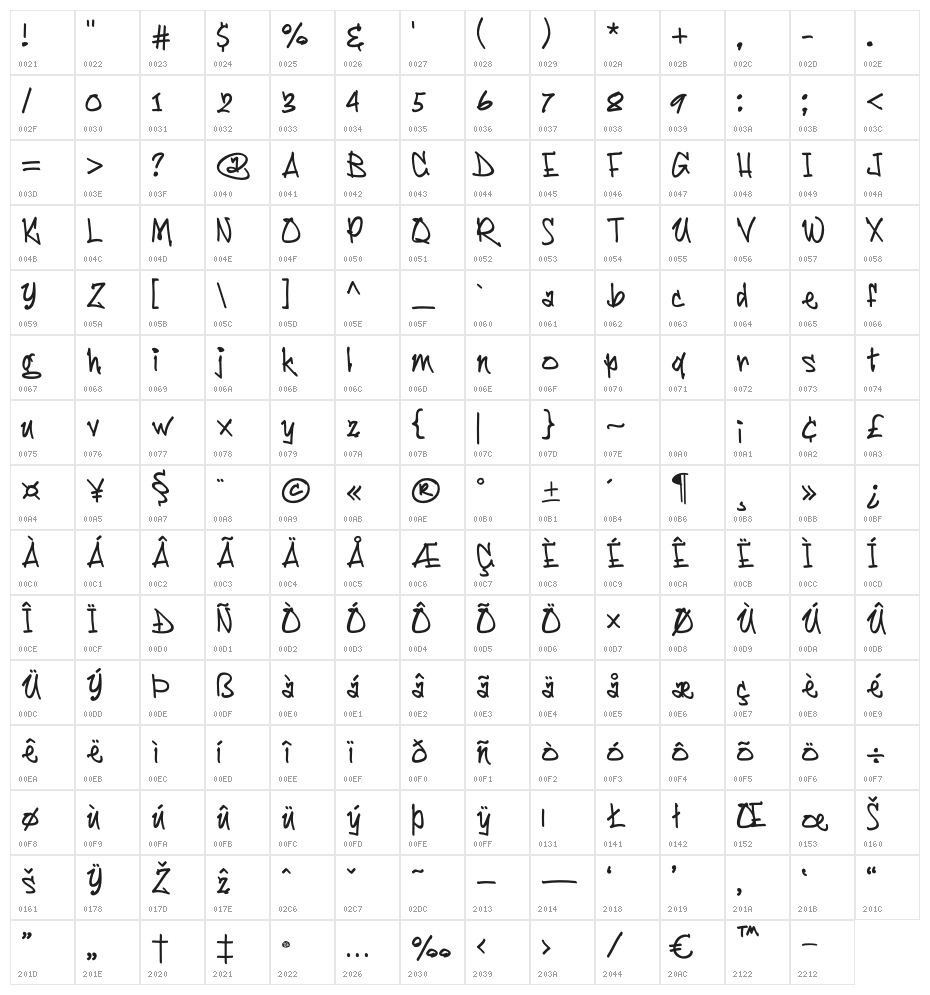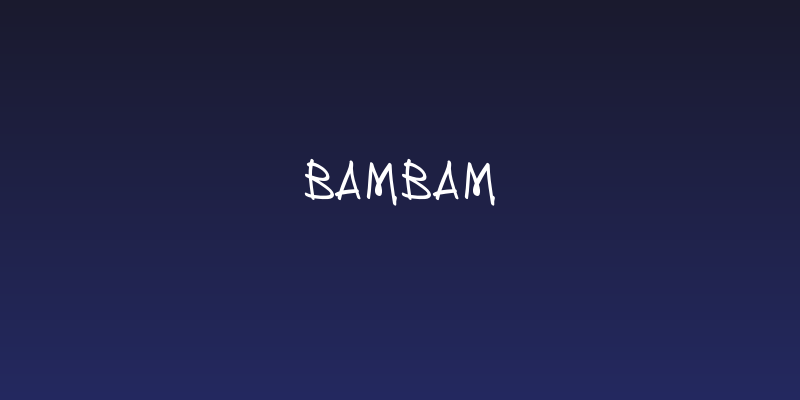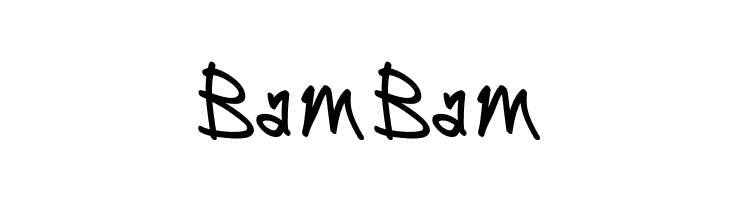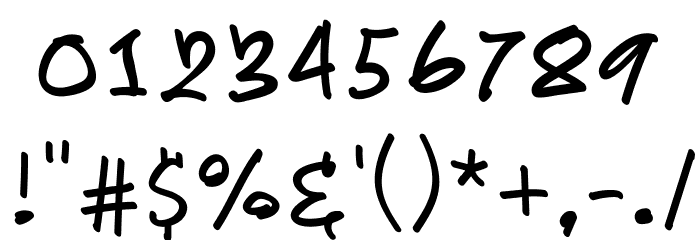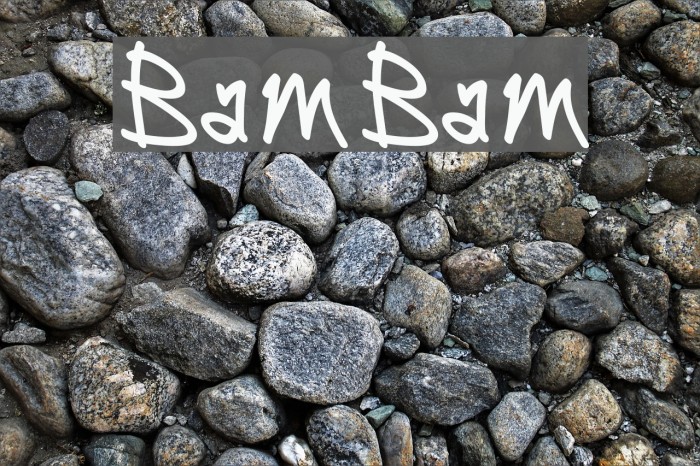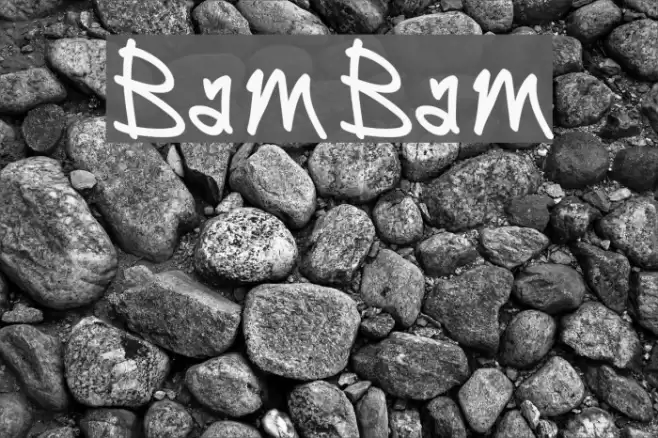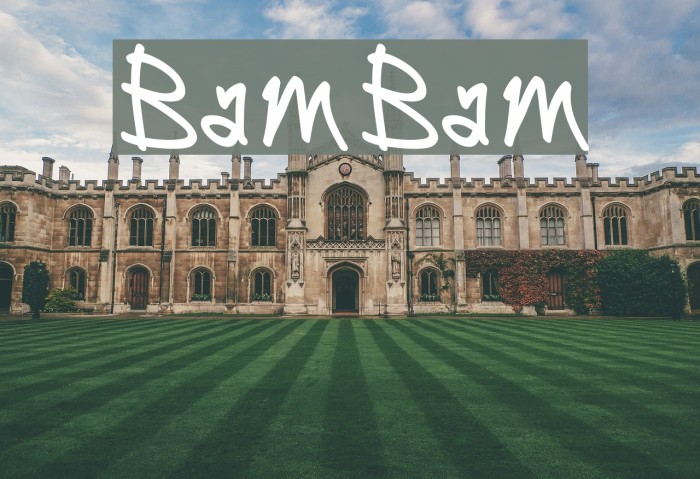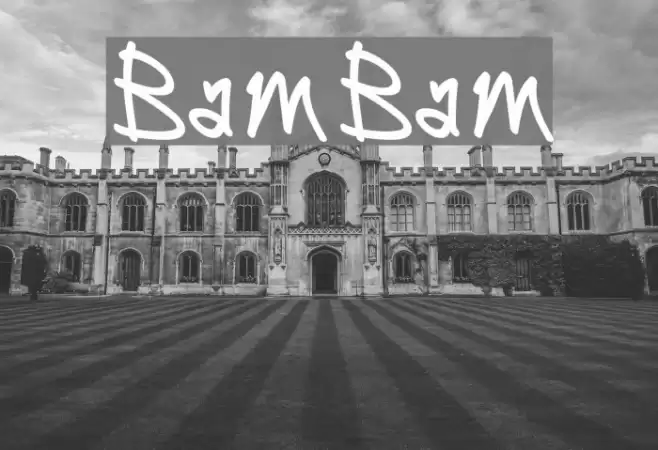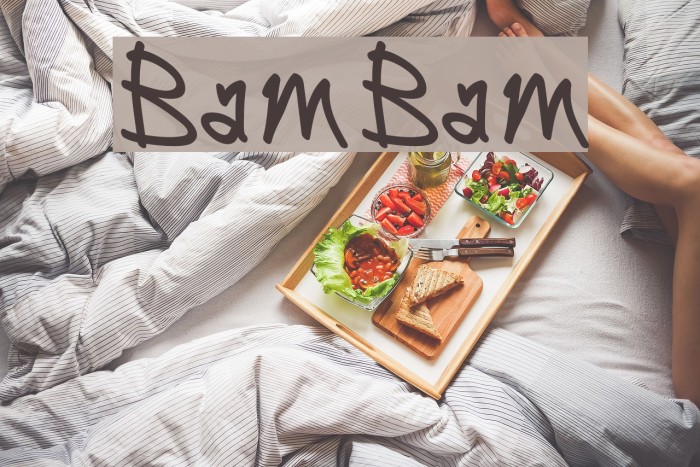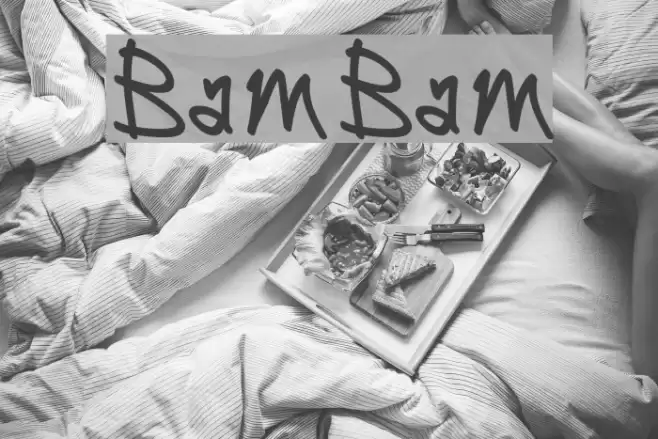
BamBam Font
| Style général | Casual, Playful |
| Cas d'utilisation | Headlines, Logos, Informal Text |
| Projets proposés | Ideal for children's books, greeting cards, playful branding, and social media graphics. |
| Auteur | Fonts by Måns Grebäck |